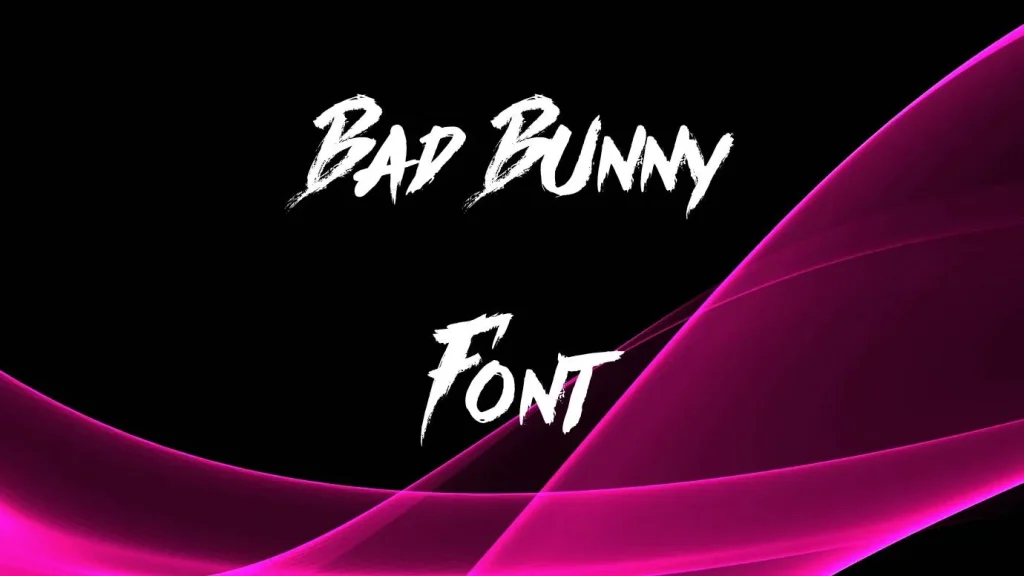
Ramandhani Nugraha designed Bad Bunny Font which is a brush typeface. The typeface family has beautiful styles. This typeface is made up of several unique glyphs. The free version can be found in this text style.
This family is utilized in many layouts due to its wide compatibility with several languages. Creative and contextual alternative alphabets are present in this typeface. The typeface is ideal for making all your fun plans it is a lovely choice.
Reasons to Use Bad Bunny Font
The lettering design of this typeface is excellent and sharp, and they work well for display as well as print media. This typeface can be used for outstanding headers, movie and brand titles, short and long paragraphs, official documents, names of resorts and shops, and office activities like annual reports, invoicing, and records, among other things.
You can use this typeface everywhere you wish to add a modern look because it works well with a variety of styles. It is suitable for banners, Business cards, Gift cards, Flyers, and T-shirt designing, and much more can be done with this text style.
This typeface is much famous in the order of creation and development since it has so many characteristics. The closest font to this typeface is levi brush font. This stunning typeface may be used for a variety of projects, including greeting cards, postcards, product packaging, book covers, and more. Additionally, you may use this typeface to create digital graphics like website logos.
One of the greatest brush fonts is Bad Bunny, you can use this typeface to create digital graphics like website logos. It's one of the most popular typefaces.
Ramandhani Nugraha designed Bad Bunny typeface which is a brush typeface.